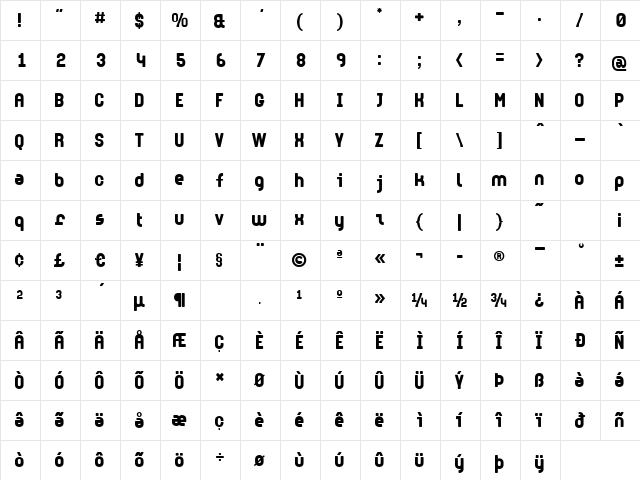
GAzole Bold Font Preview
GAzole Bold
GAzole Bold Font Details
Design Context for GAzole Typeface
GAzole is a composed and adaptable typeface that performs quietly and consistently across a wide range of design contexts. The heavy weight commands attention and anchors typographic hierarchies.